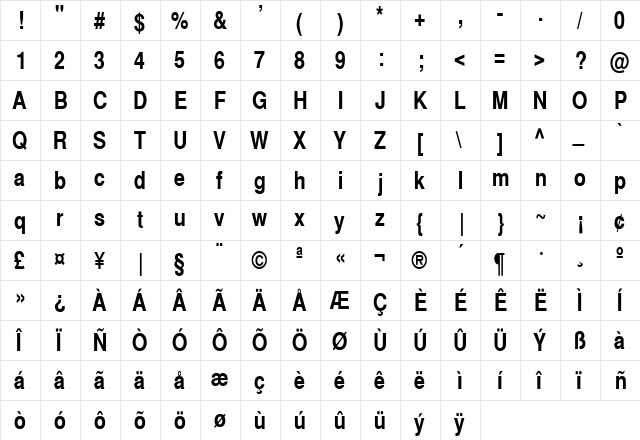
SwitzerlandNarrow Bold
Design Context for SwitzerlandNarrow Typeface
SwitzerlandNarrow offers clean, dependable letterforms without strong stylistic allegiance, making it a practical choice for designers who need flexibility. Its bold stroke weight gives it real presence on the page. The condensed width makes it efficient for tight spaces without sacrificing legibility.